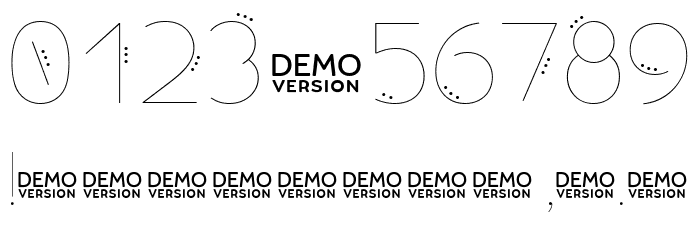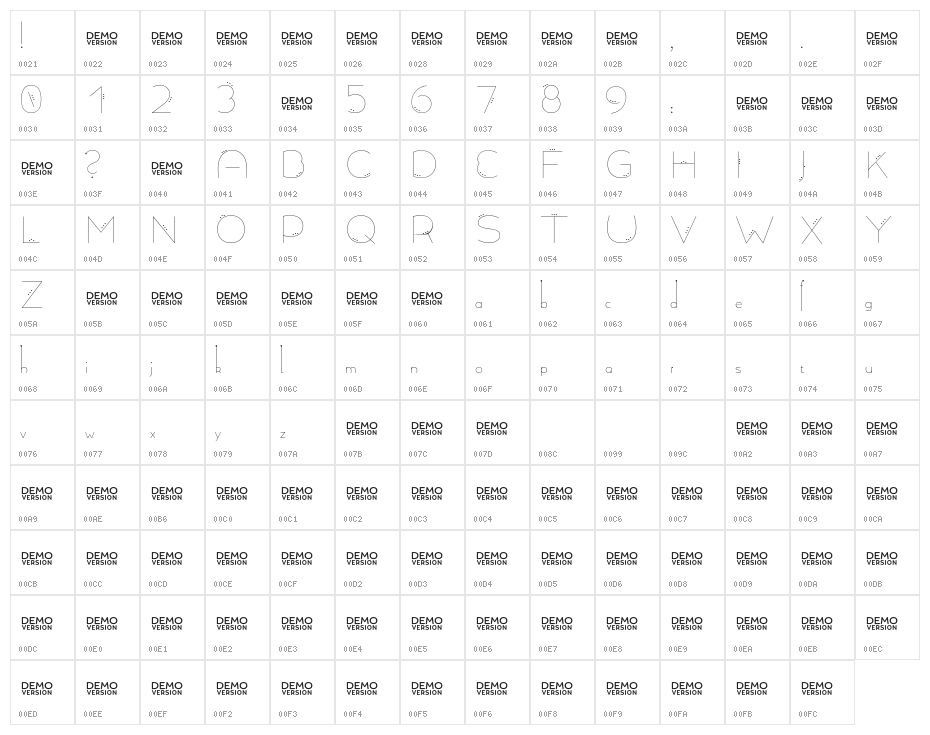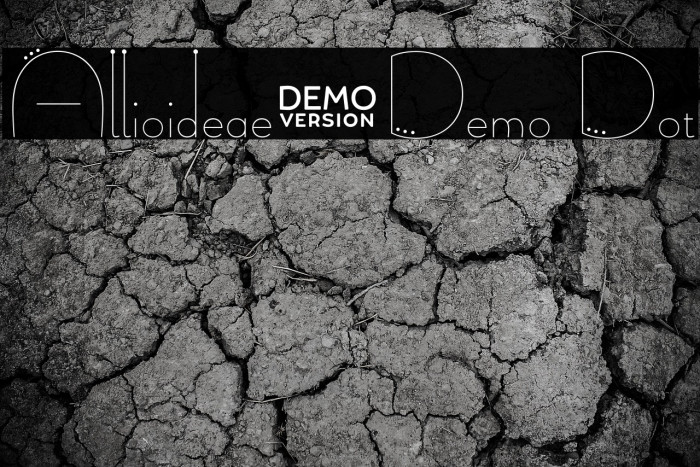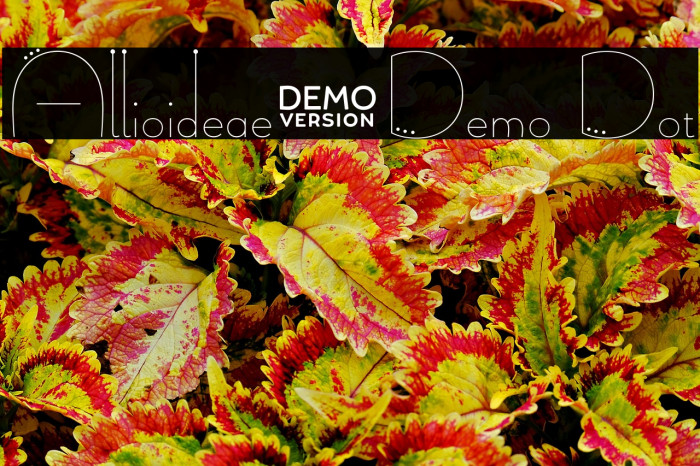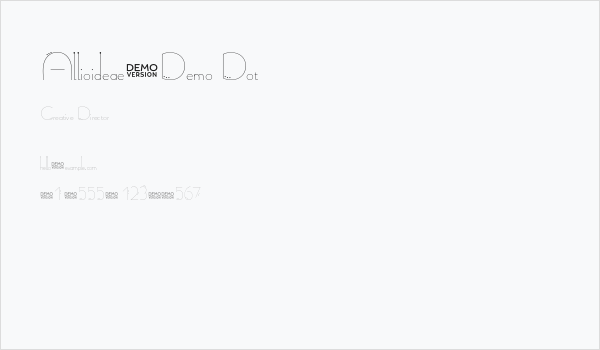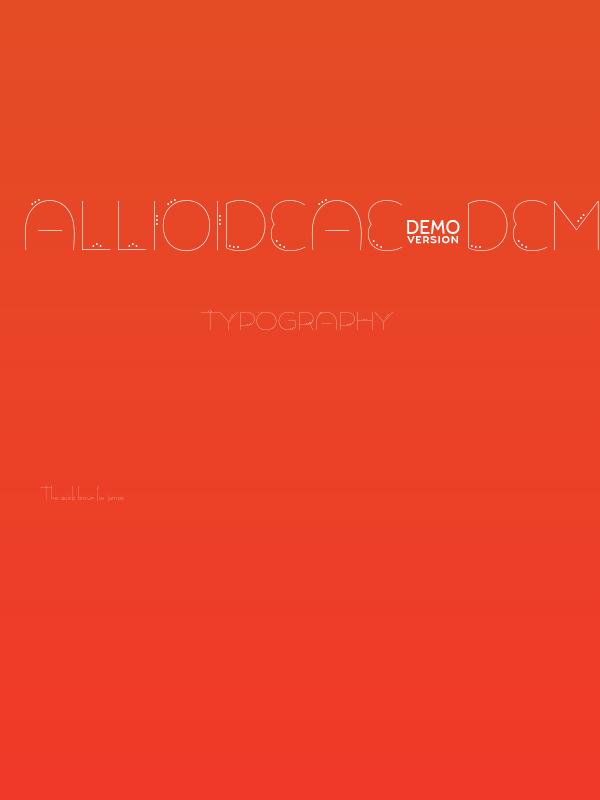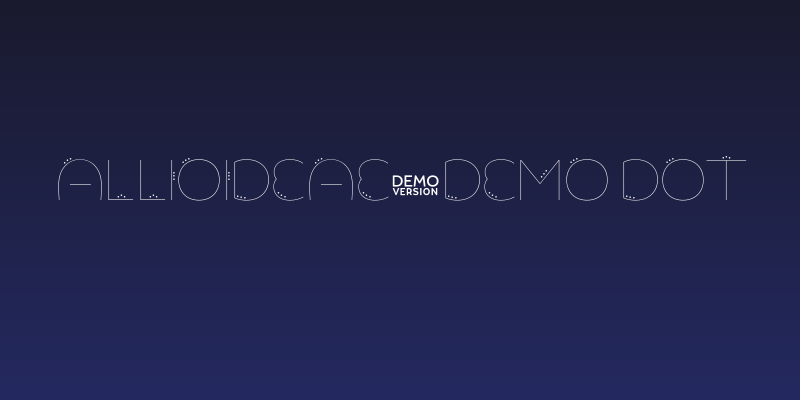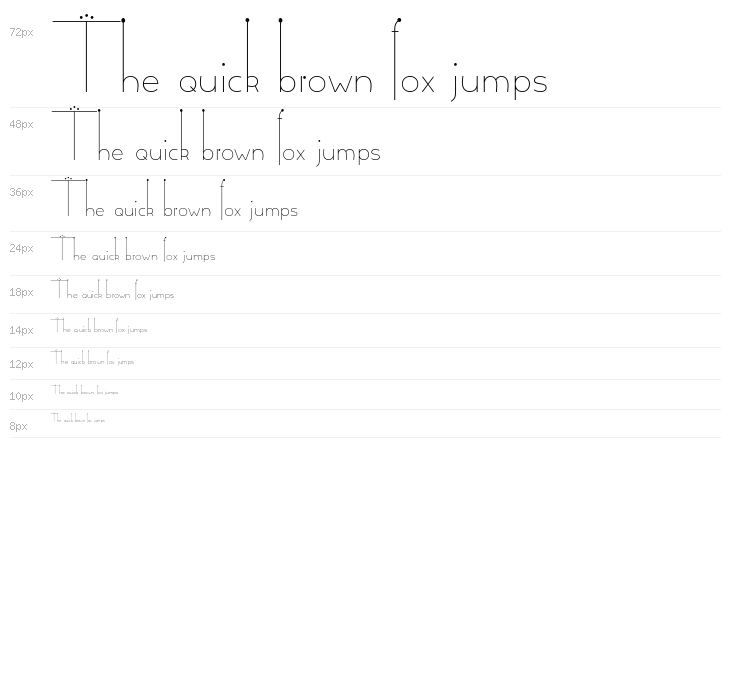
Allioideae-Demo Dot Font
Allioideae-Demo Dot Description
This font features a unique and modern design with a dotted pattern integrated into the characters. The uppercase letters are tall and slender, with clean lines and a minimalist aesthetic. The lowercase letters maintain a similar style, with some characters having extended ascenders and descenders, adding a playful touch. The numbers are consistent with the overall design, featuring the same dotted accents. Special characters like $, ?, &, %, !, #, *, = are also included, each with a distinctive look that complements the font's style. The overall appearance is sleek and contemporary, making it suitable for creative and innovative projects.